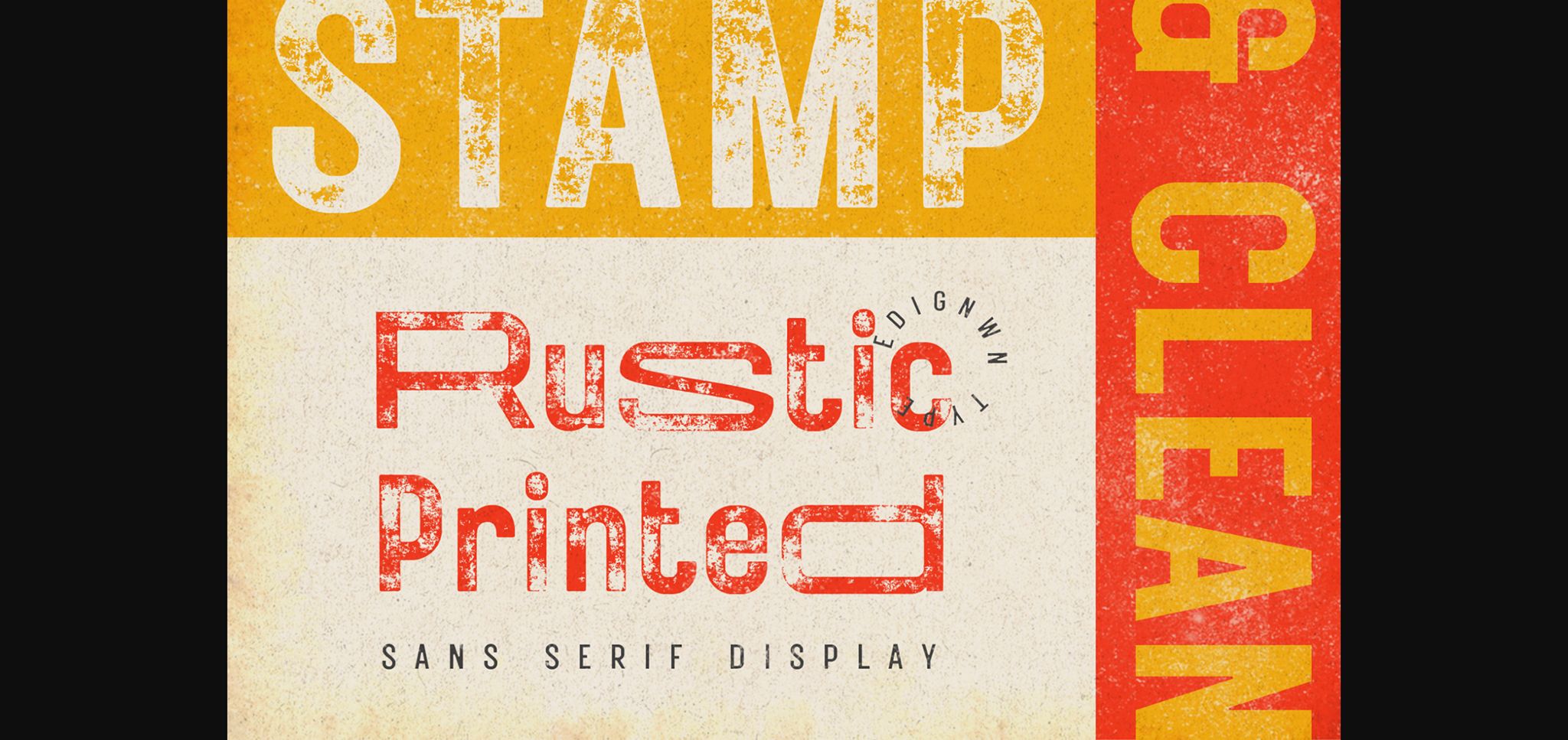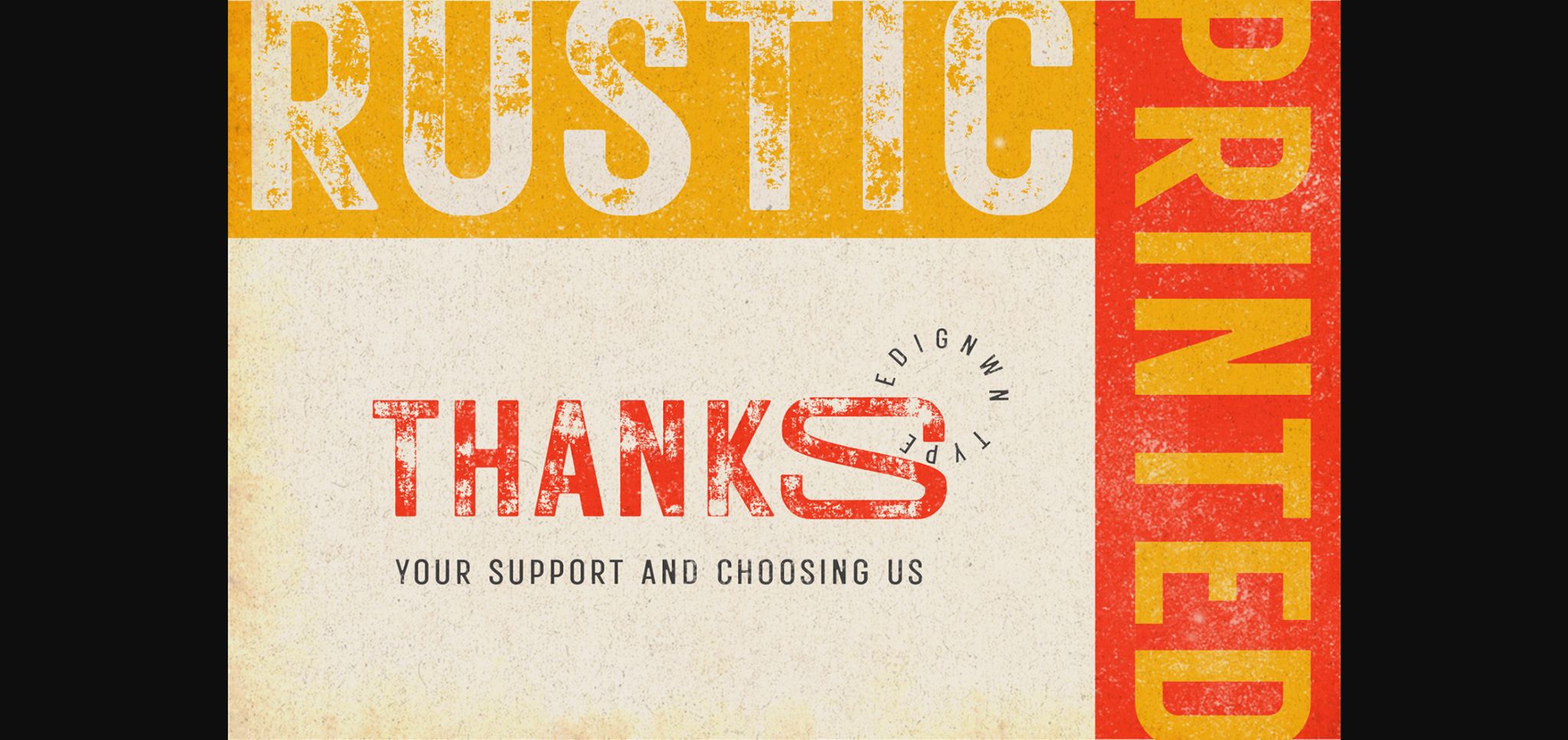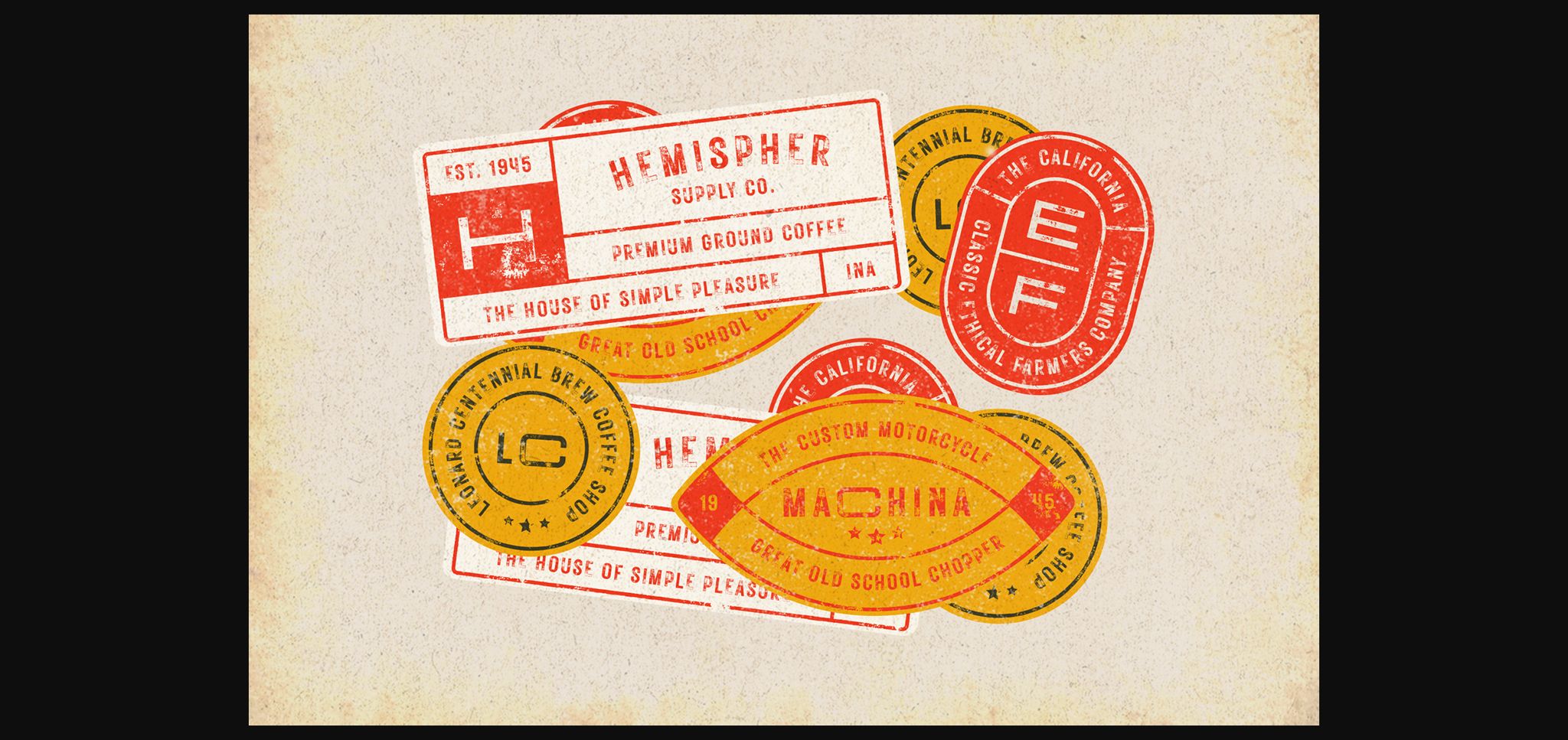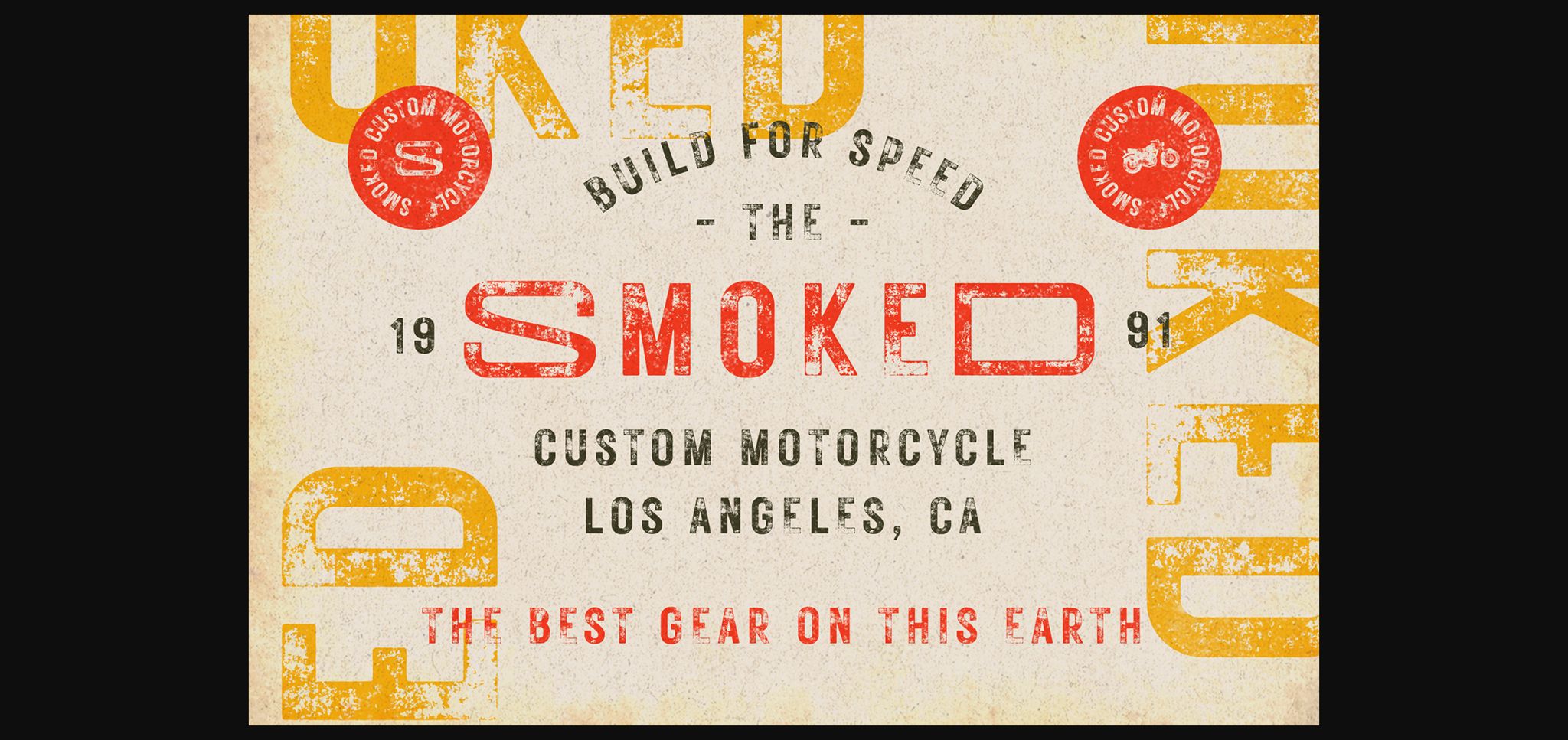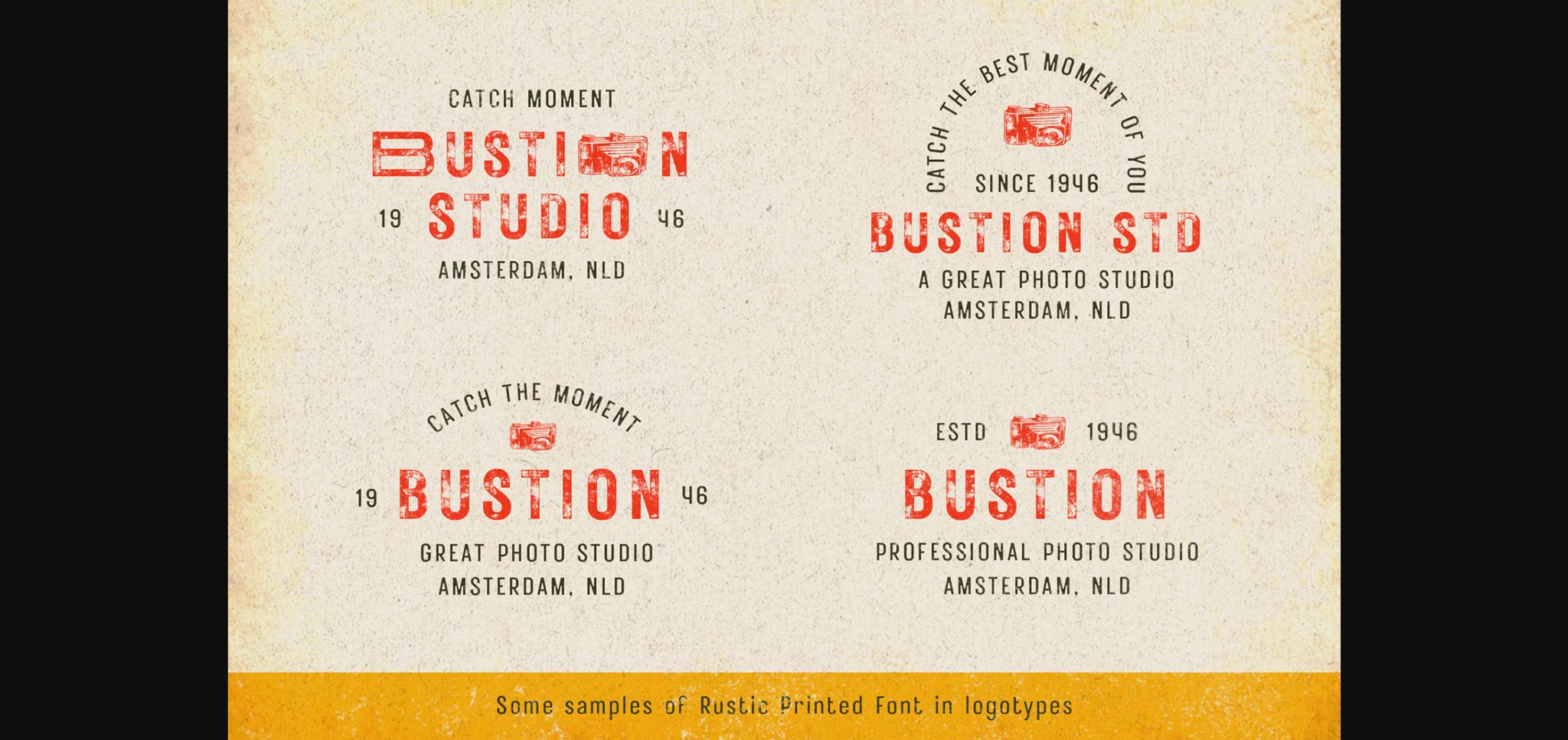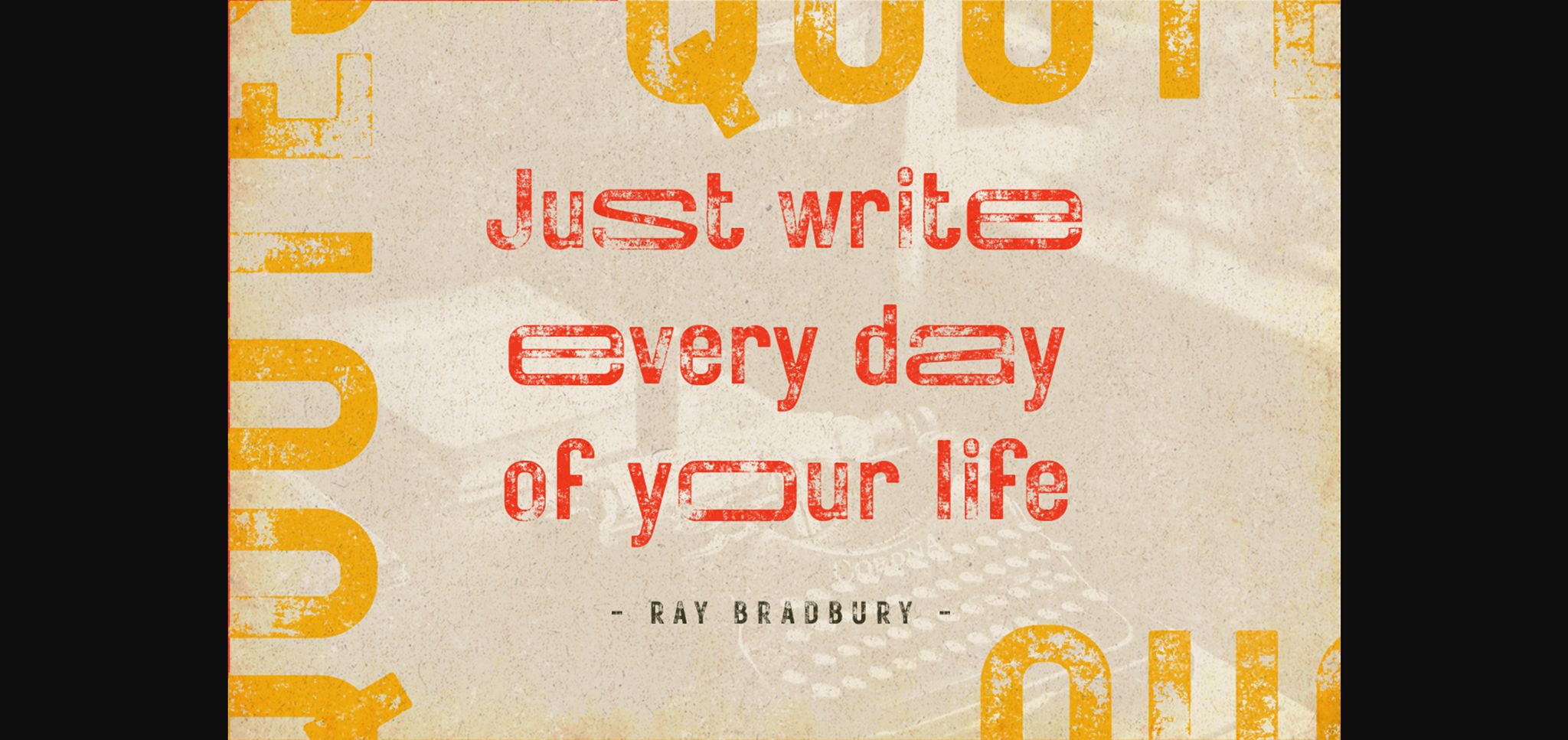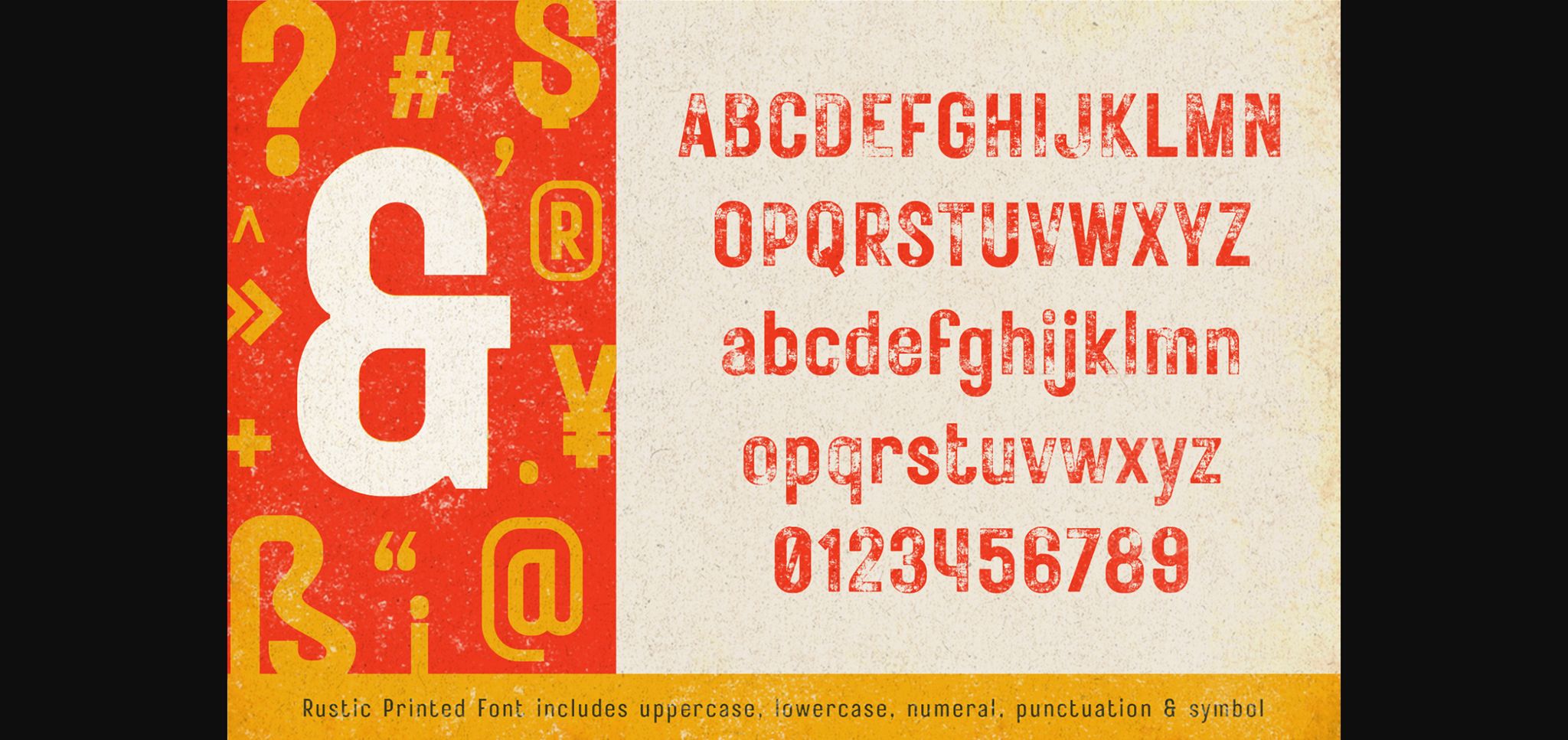
Rustic Printed Font
Create gorgeous and timeless designs with Rustic Printed, an interesting and unique sans serif font.
Fall in love with its incredibly stylish look and use it for logos, quotes, invitations, business cards, power point presentations, and more!